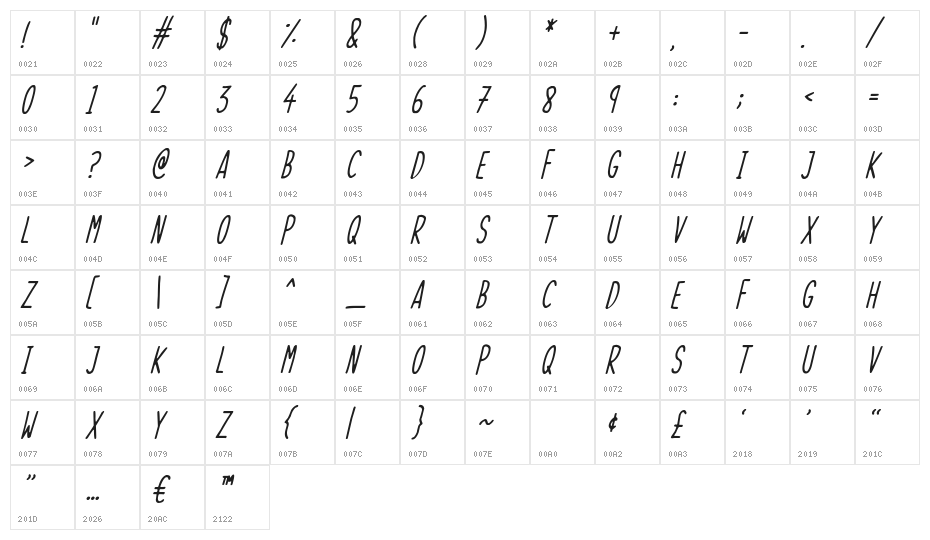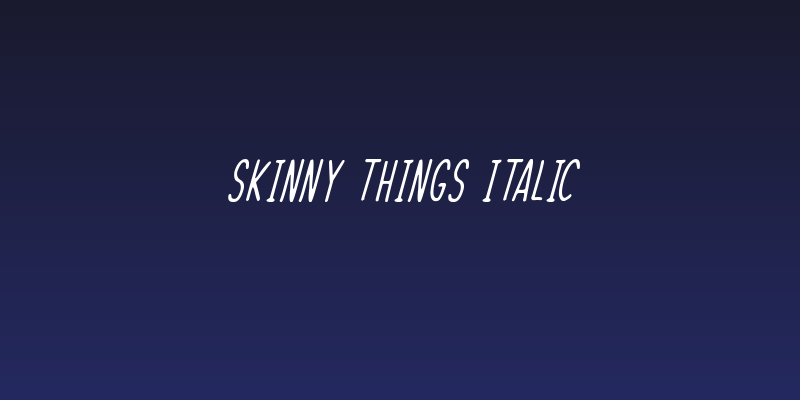
Skinny Things Italic Font
Skinny Things Italic Description
This font features a tall and slender design with an italicized slant, giving it a dynamic and energetic appearance. The characters are elongated with a consistent stroke width, creating a cohesive and streamlined look. The uppercase and lowercase letters maintain a uniform height, enhancing readability while adding a touch of elegance. The numerals and special characters are designed to match the overall style, ensuring a harmonious visual experience. This font's unique style makes it suitable for projects that require a modern and stylish touch.
| Proposed Projects | Ideal for fashion branding, modern posters, dynamic logos, and stylish invitations. |